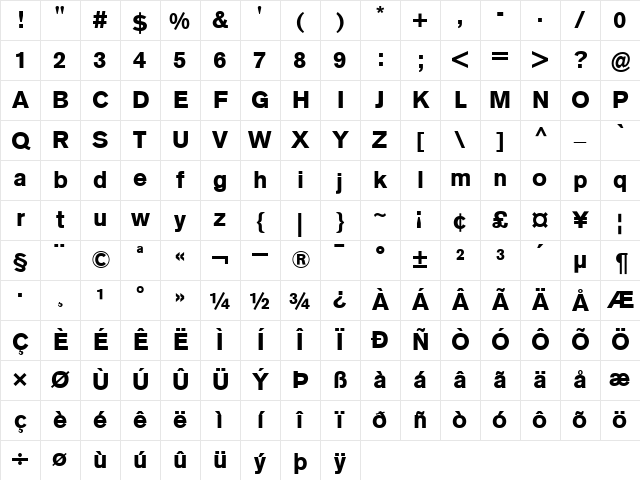
Complete BertholdAkzidenzGroteskBE Bold glyph index. Displaying only characters natively supported by BertholdAkzidenzGroteskBE Bold font.
BertholdAkzidenzGroteskBE takes a clean, functional approach - its unadorned letterforms prioritise legibility and work reliably across screen and print environments. Its bold stroke weight gives it real presence on the page.
Font Pairing: Use BertholdAkzidenzGroteskBE for headlines alongside a lighter-weight sans or serif for body copy to establish clear visual hierarchy.
Pro Tip: Use BertholdAkzidenzGroteskBE for UI labels, navigation, and short-form body copy where clean legibility is the priority.